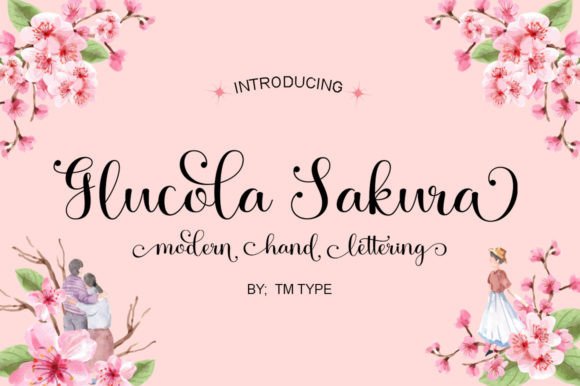
Prepare to be captivated by Glucola Sakura, a script font that exudes elegance and charm! This enchanting font, meticulously crafted by TM Type, is the epitome of handwritten beauty.
Indulge in the ethereal nature of Glucola Sakura, where every letter dances with a graceful fluidity. Its delicate curves and enchanting strokes will add a touch of romance to your creations, making your words come alive with a captivating presence.
Whether you're crafting an unforgettable logo, designing enchanting invitations, or creating heartfelt greeting cards, Glucola Sakura will elevate your projects to new heights of sophistication. Its versatility knows no bounds, allowing you to seamlessly weave it into a myriad of design concepts.
With Glucola Sakura, your designs will radiate a timeless allure, exuding a sense of warmth and tranquility. Its gentle embrace will captivate your audience, leaving an indelible impression that lingers long after they lay eyes upon your creations.